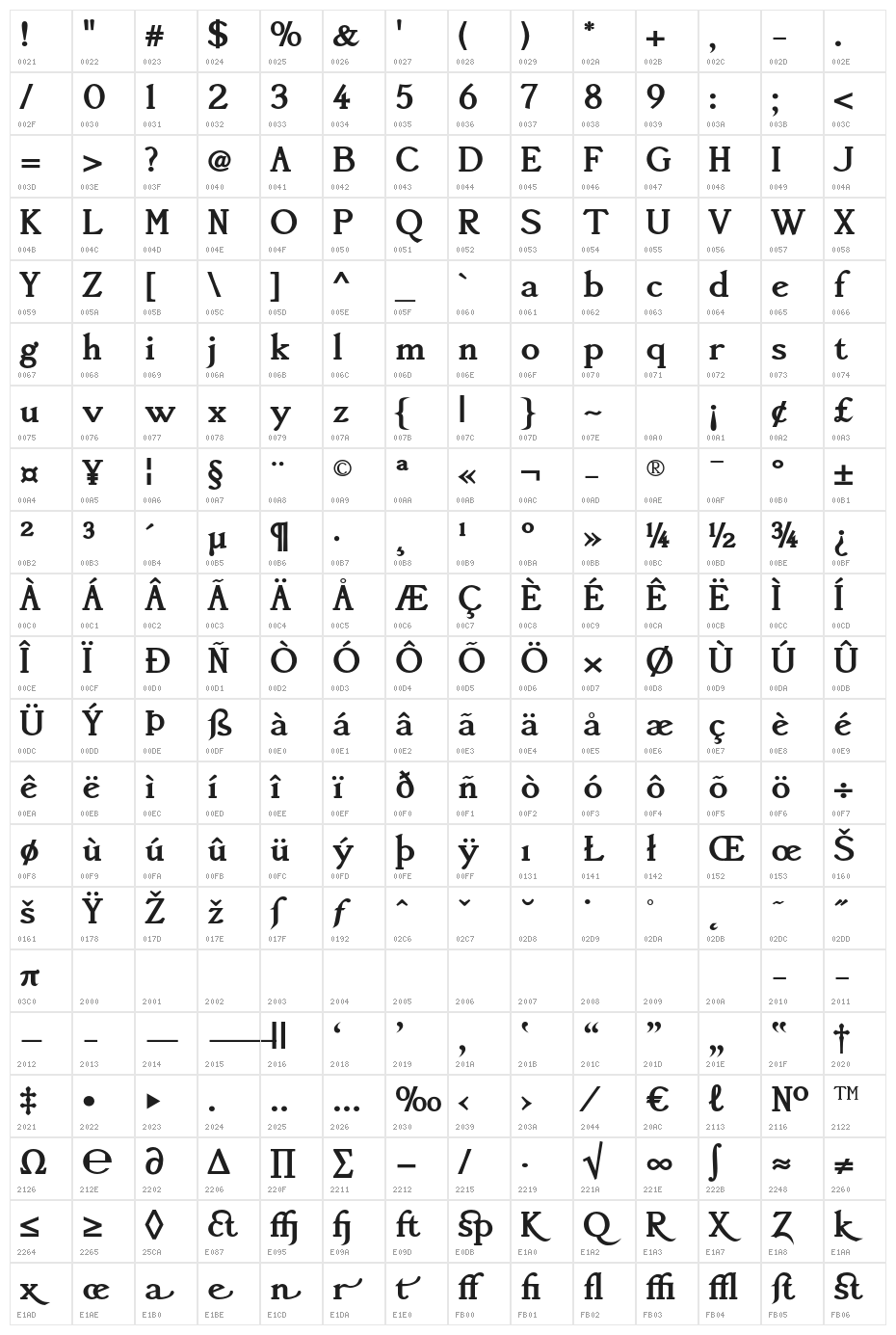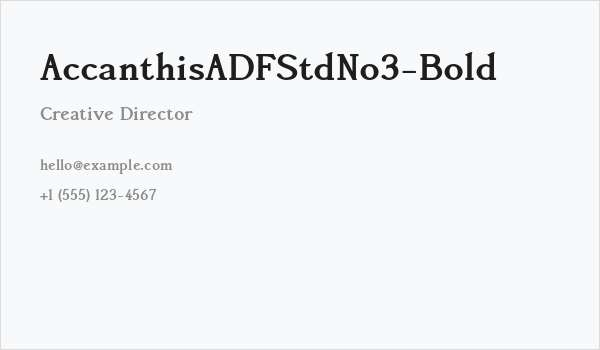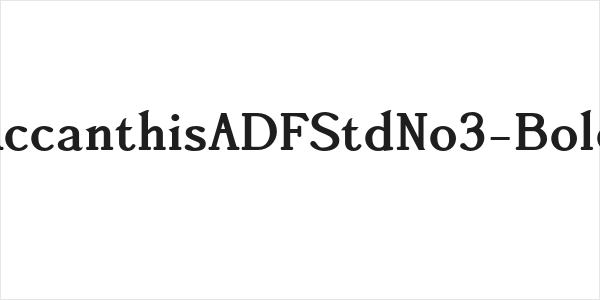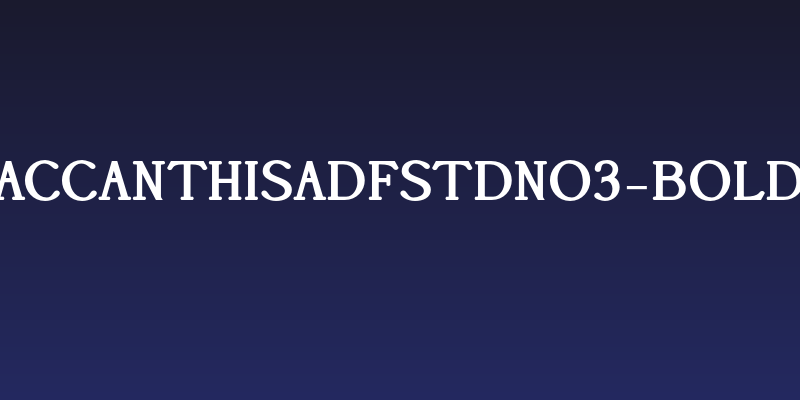
AccanthisADFStdNo3-Bold Font
AccanthisADFStdNo3-Bold Description
This font exhibits a classic serif style with a bold weight, offering a strong and authoritative presence. The characters are well-defined with moderate contrast between thick and thin strokes, enhancing readability while maintaining elegance. The serifs are pronounced yet refined, contributing to a traditional and sophisticated appearance. The uppercase letters are stately and commanding, while the lowercase letters maintain a harmonious flow. The numerals are clear and balanced, suitable for both text and display purposes. Special characters are distinct and integrate seamlessly with the overall design, making this font versatile for various applications.
| Proposed Projects | Ideal for book covers, editorial design, formal invitations, and branding projects that require a touch of sophistication. |